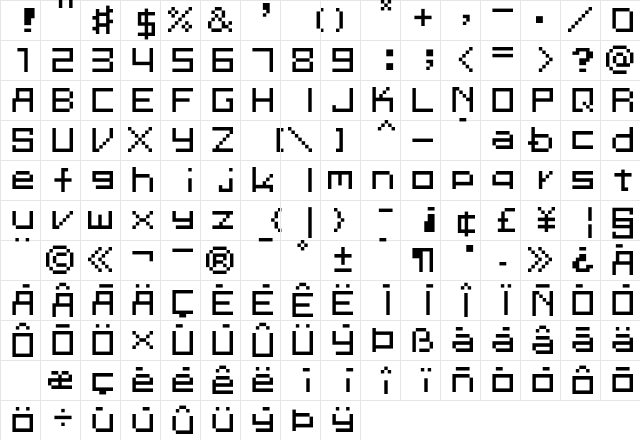
Megaten 20XX Regular
Design Context for Megaten 20XX Typeface
Megaten 20XX takes a measured approach to typography — its balanced proportions and neutral character make it a reliable workhorse for both digital and print work.